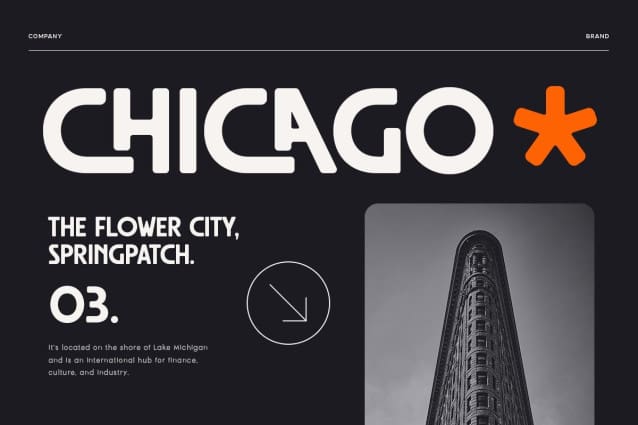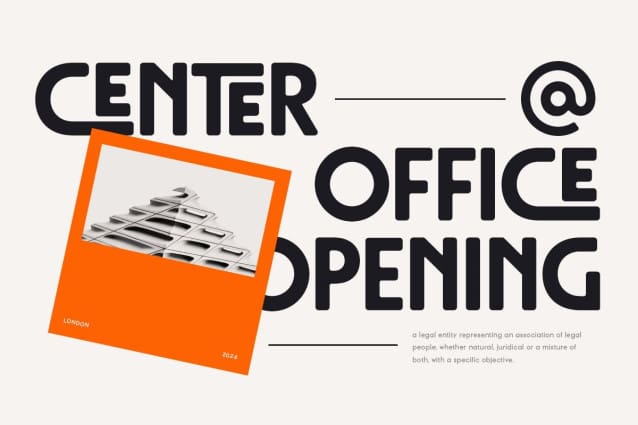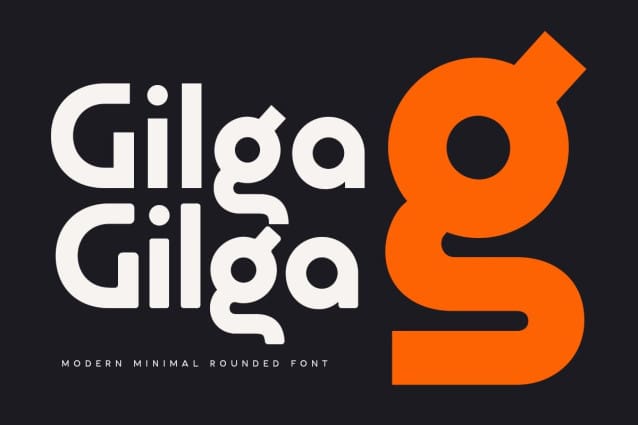
Gilga Font
Gilga Font is a modern minimalist rounded font, a modern geometric font with a unique and premium minimalist sans serif font , which you can combine to easily get unique variations and shapes in seconds by choosing alternatives. This is a sans serif font with a minimalist style, perfect for branding projects, logos, poster designs, social media posts, advertisements, product packaging, product designs, labels, photographs, watermarks, invitations, stationery and any other project, it offers a high standard readability.